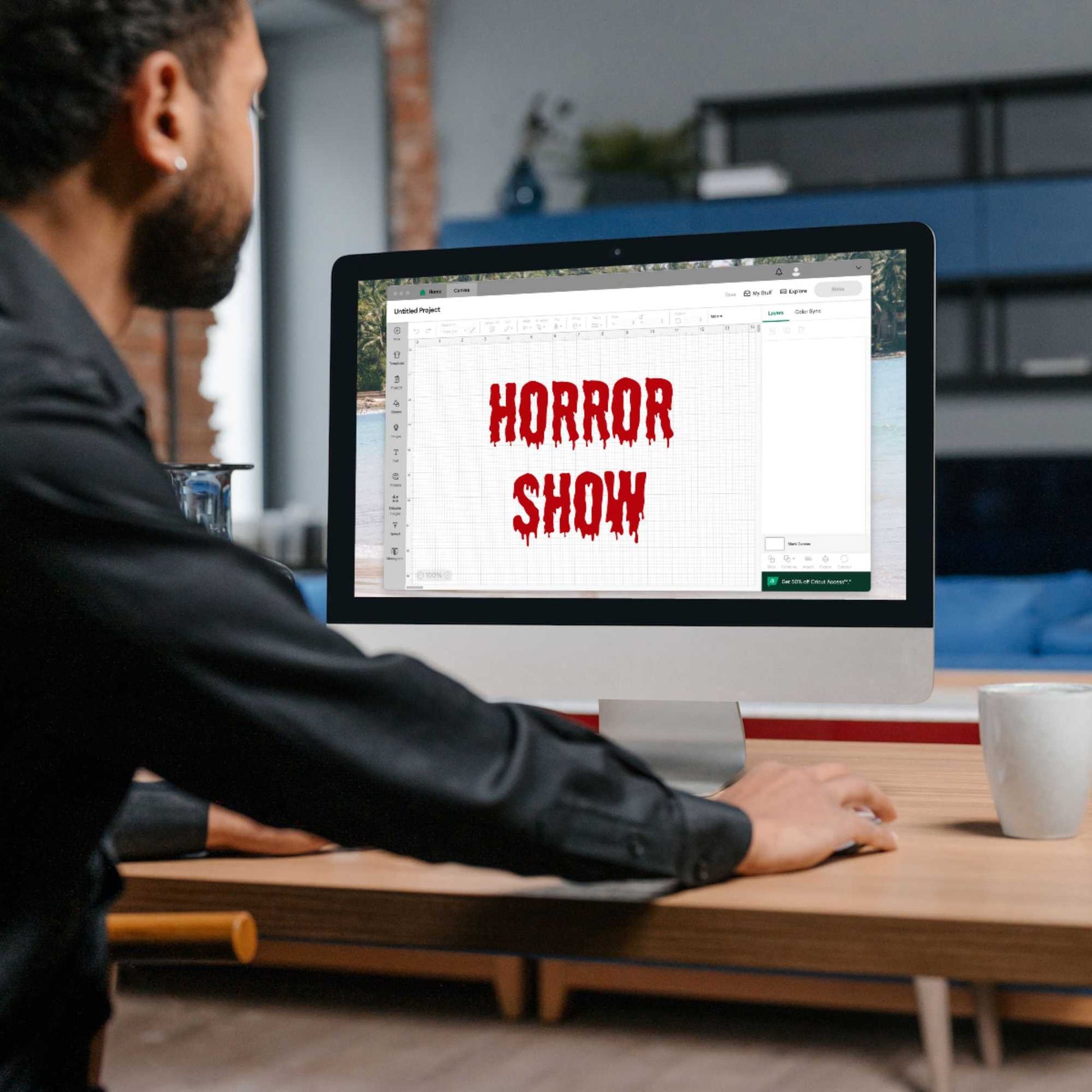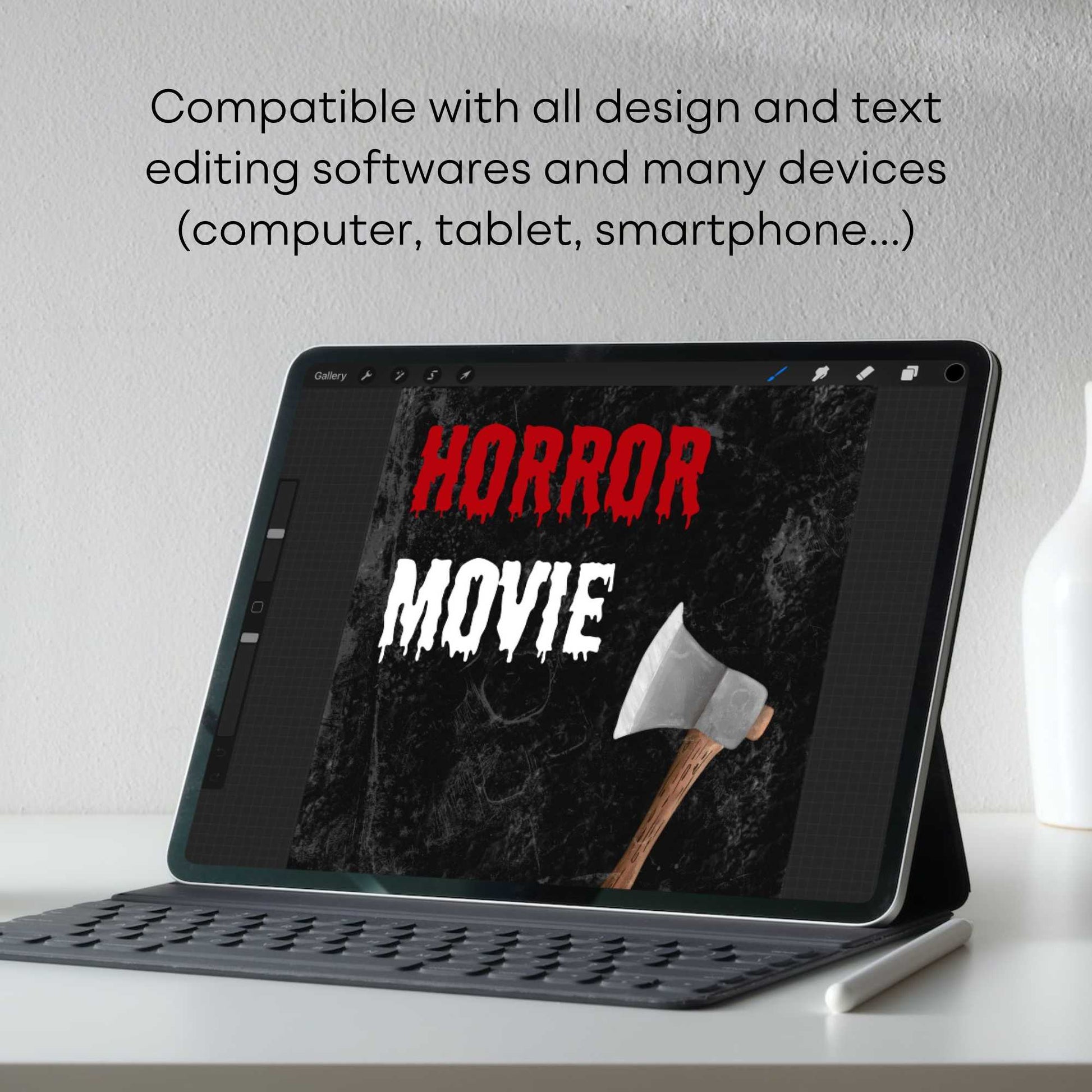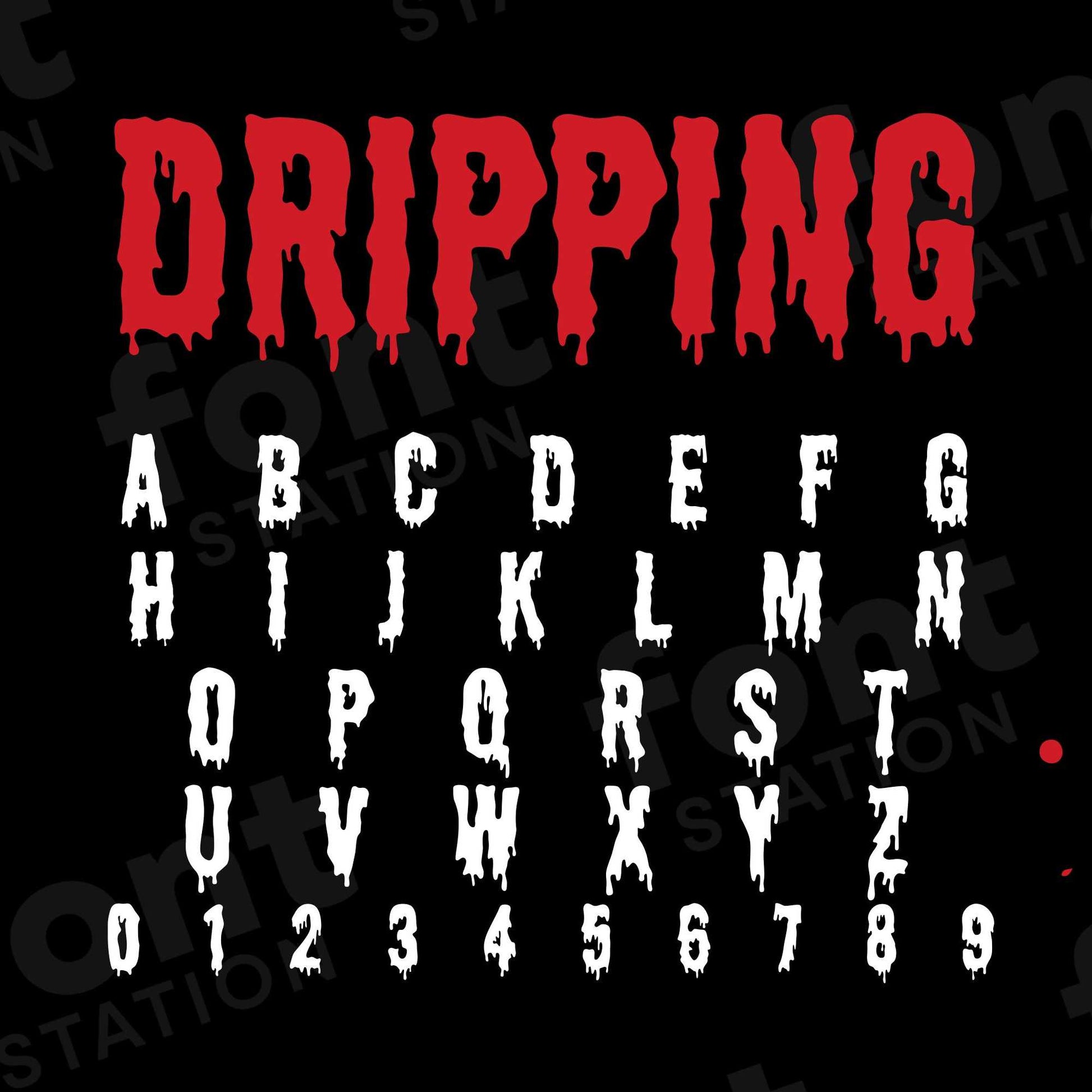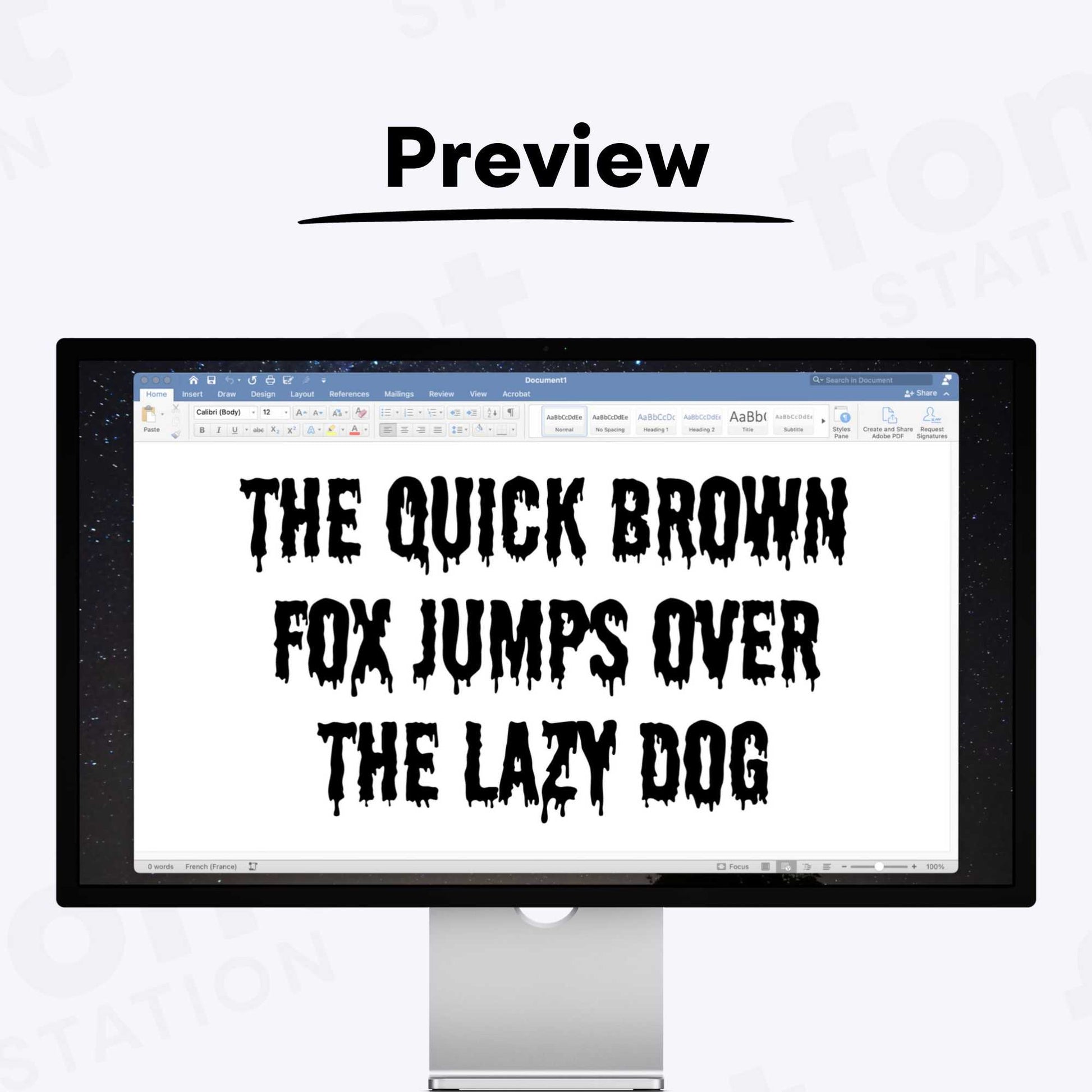
Dripping Font
Our Dripping typeface, inspired from Halloween Blood Drip font
Grab your computer, tablet or other device and start creating right now with our Halloween Blood Drip font letters! Our Dripping typography is inspired from Halloween Blood Drip font, making it ideal for various digital creations (logo, word...), sublimation, cake toppers, stickers, event decorations, and more.